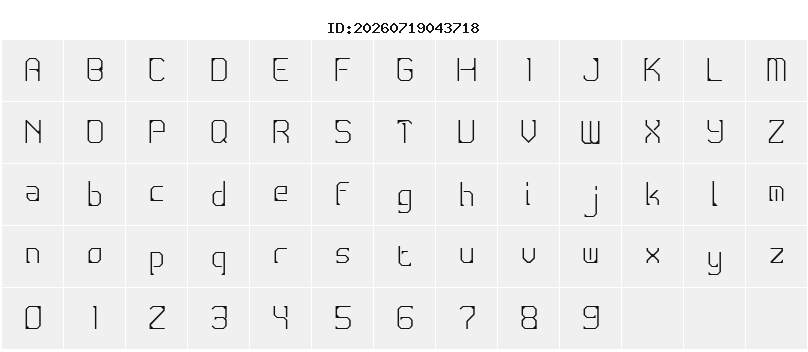
Conductive Preview
• Font Name: Conductive
• Full Font Name: Conductive
• Designer: Antonius Ferdinand
About Conductive.ttf
Conductive.ttf is a modern, elegant sans-serif font designed for ultimate readability and visual harmony. Perfect for branding, headlines, web design, and print materials.